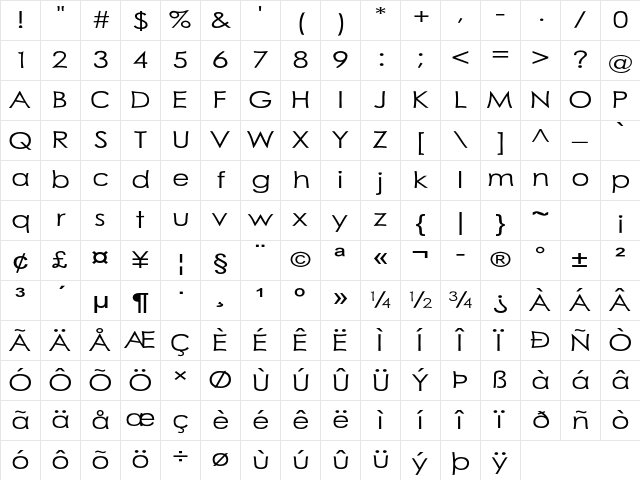
Voltagio Expanded Regular
Style: Expanded Regular
Design Context for Voltagio
Voltagio is a composed and adaptable typeface that performs quietly and consistently across a wide range of design contexts.
Pro Tip: Use Voltagio in both headline and body roles to test its range before committing to a single application.